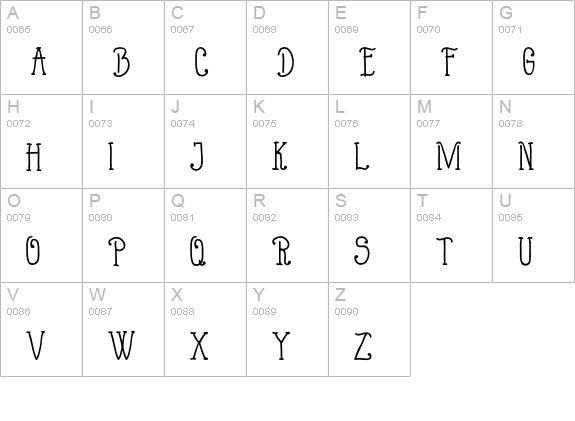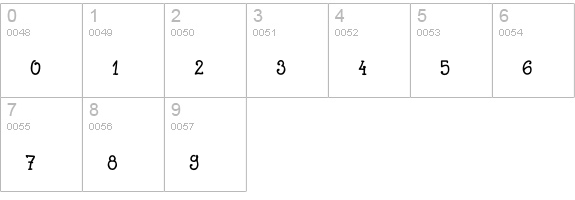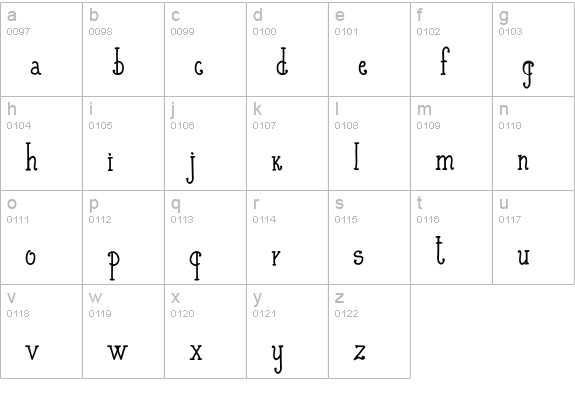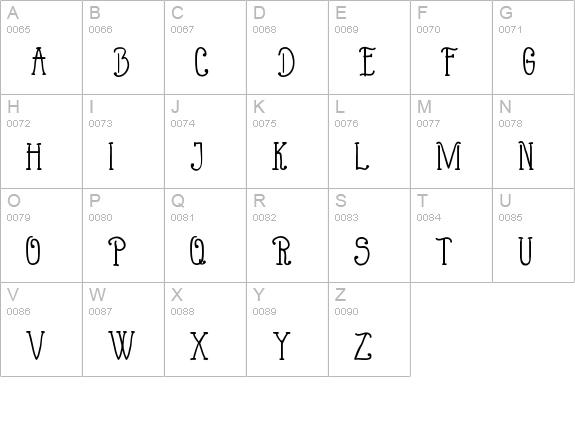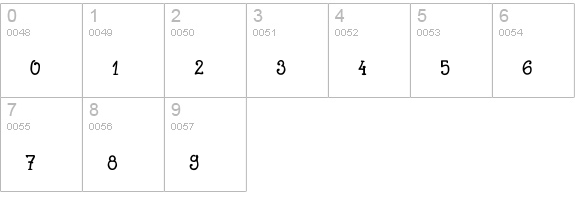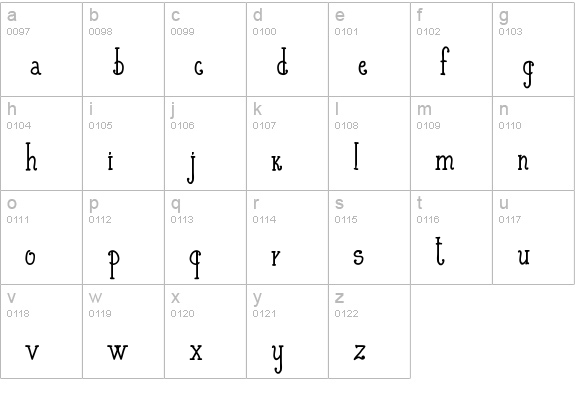
CarloMarlo Font Details
CarloMarlo font is a beautifully crafted typeface that exudes elegance and sophistication. With its sleek lines and modern design, this font is perfect for a wide range of creative projects, from branding to editorial design. The graceful curves and balanced letterforms of CarloMarlo give any text a touch of class and style. The best part? CarloMarlo font is completely free! That's right, you can download this exquisite typeface at FontsMarket.com without spending a dime. Whether you're a designer looking to elevate your work or a business wanting to enhance your branding, CarloMarlo font is the perfect choice. Don't miss out on this opportunity to add a touch of luxury to your projects with the free CarloMarlo font from FontsMarket.com.